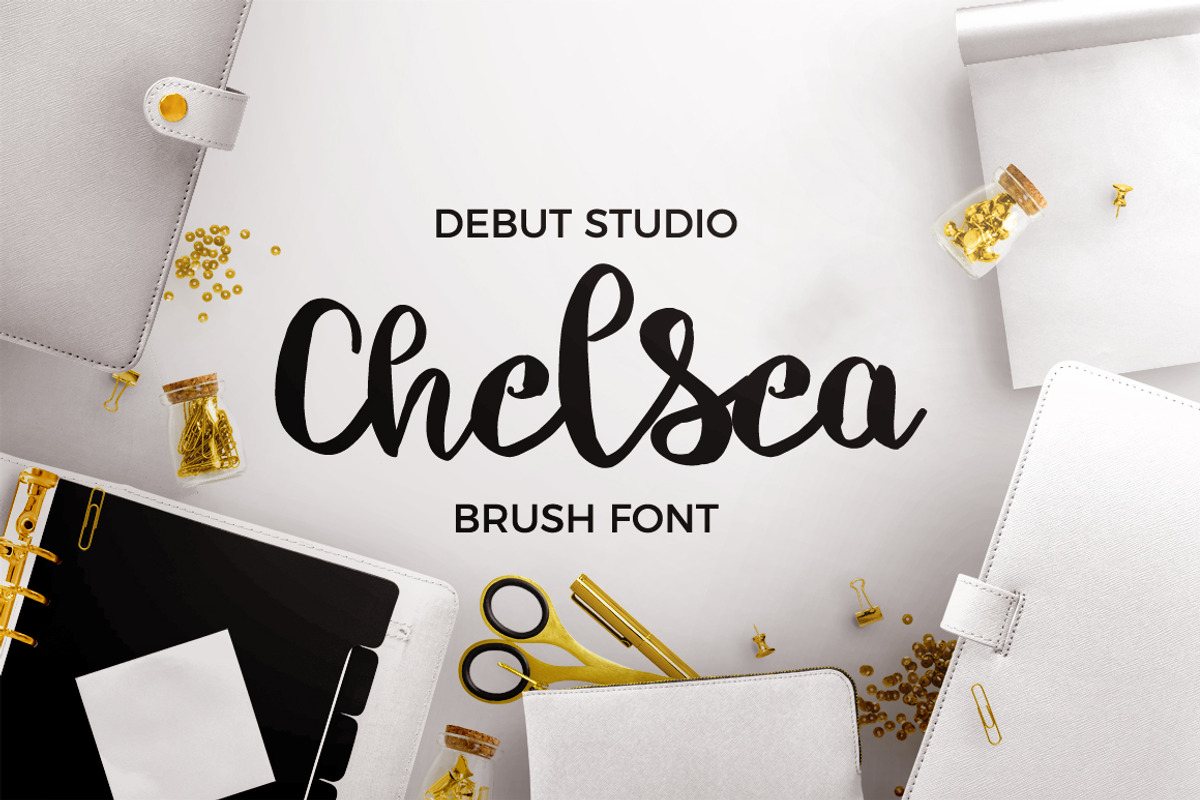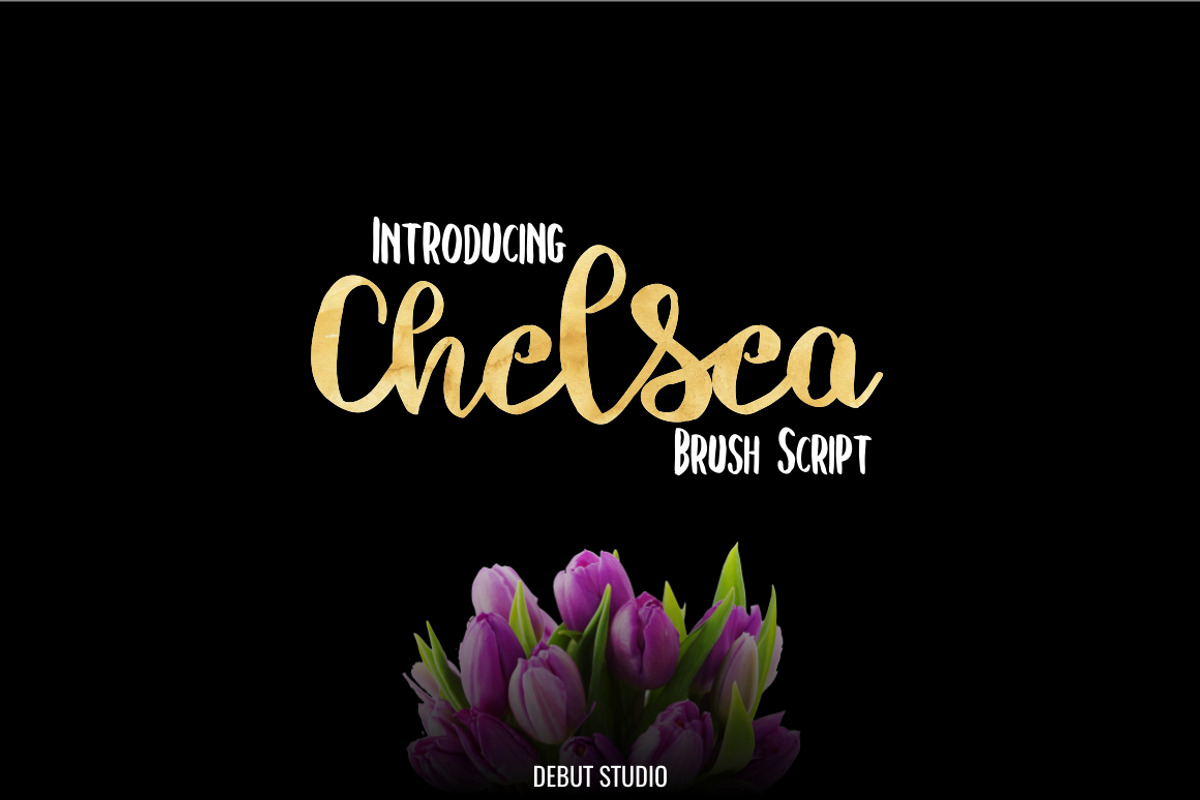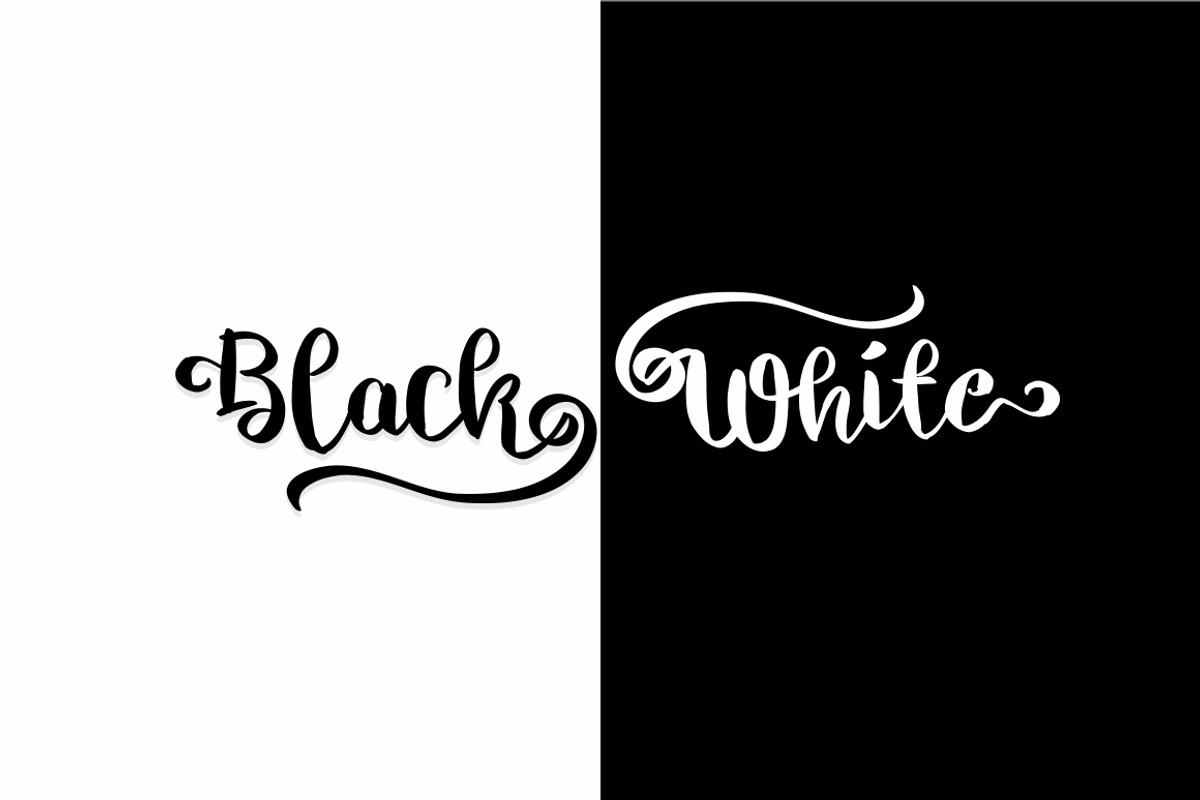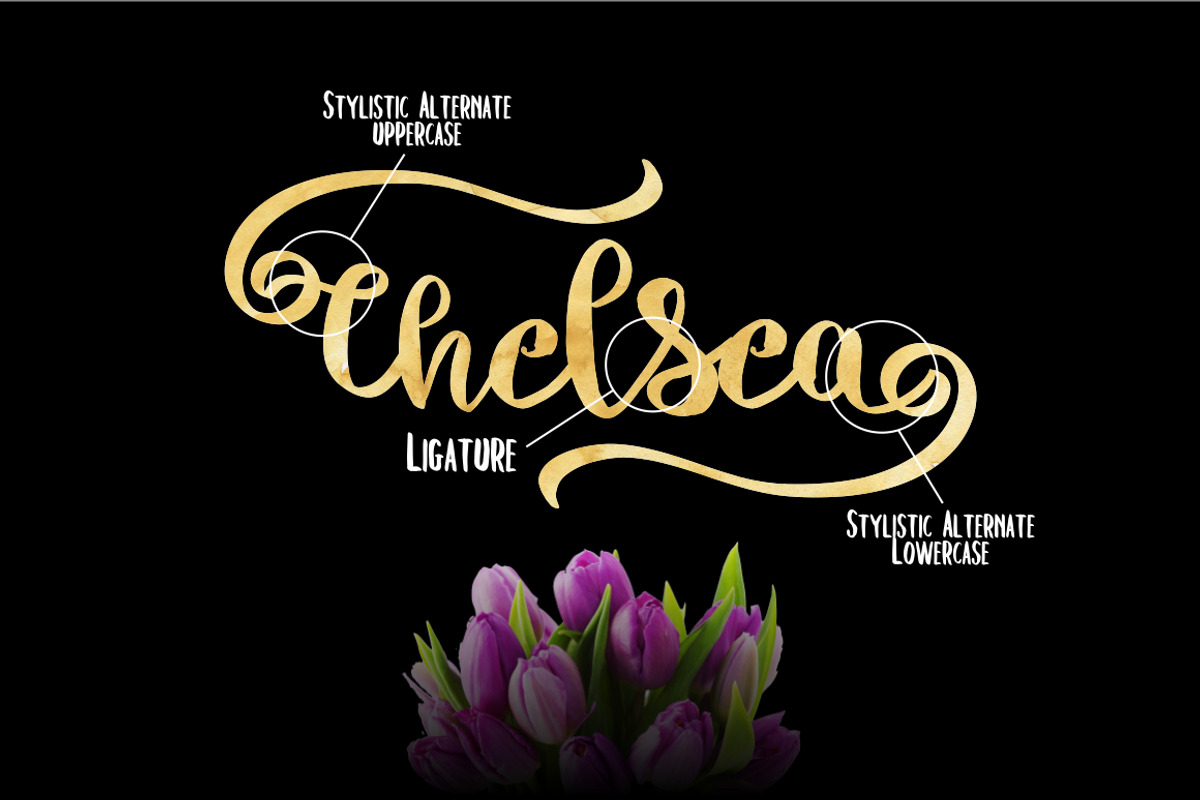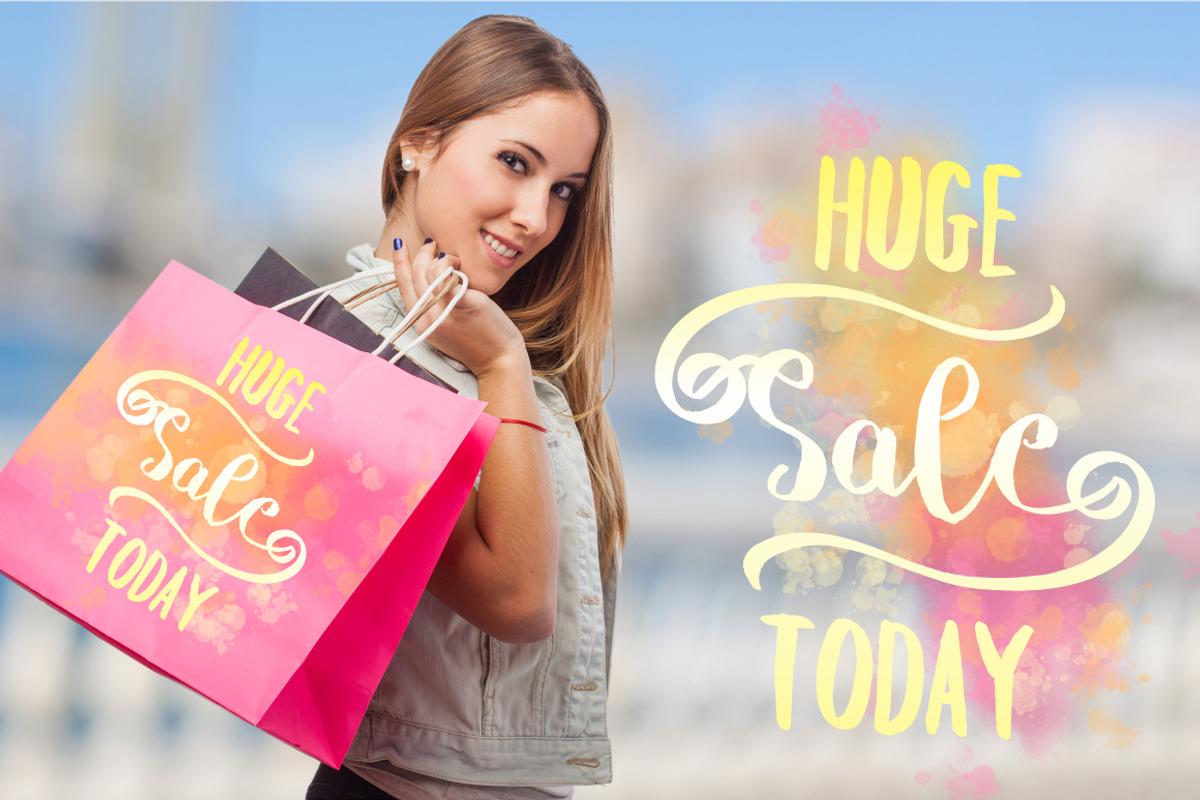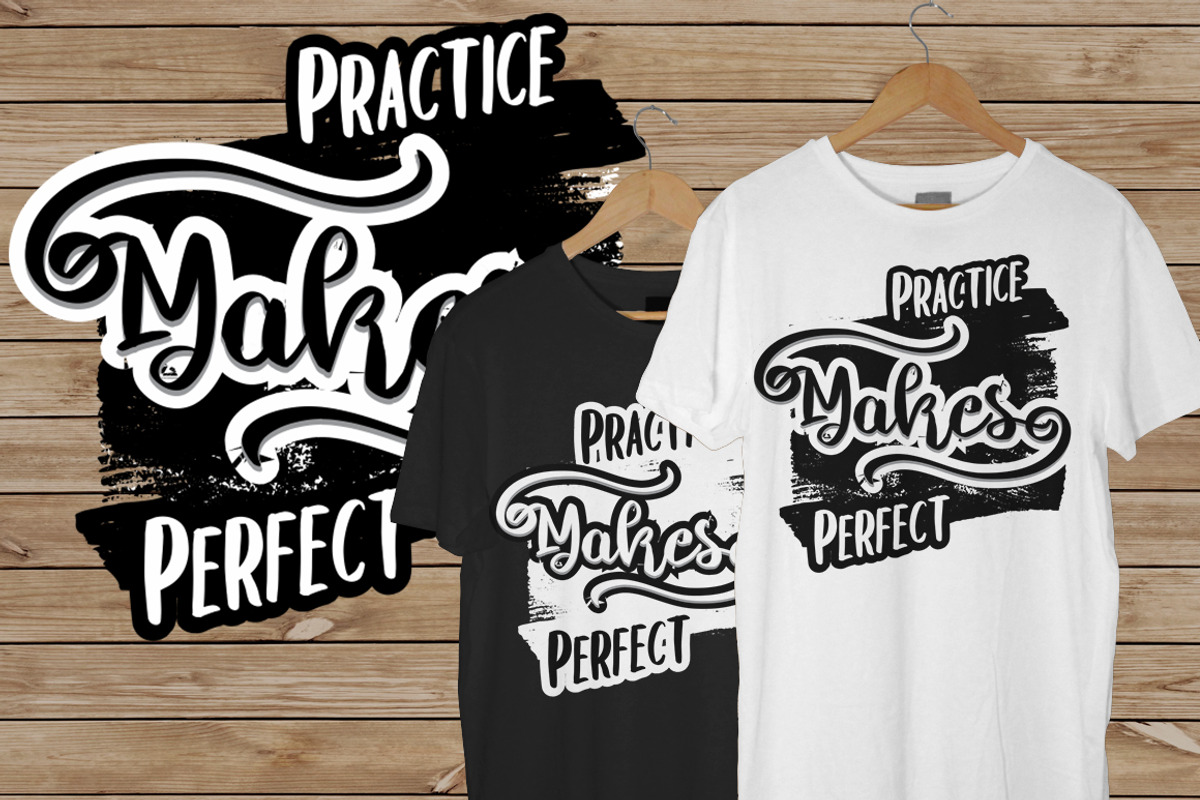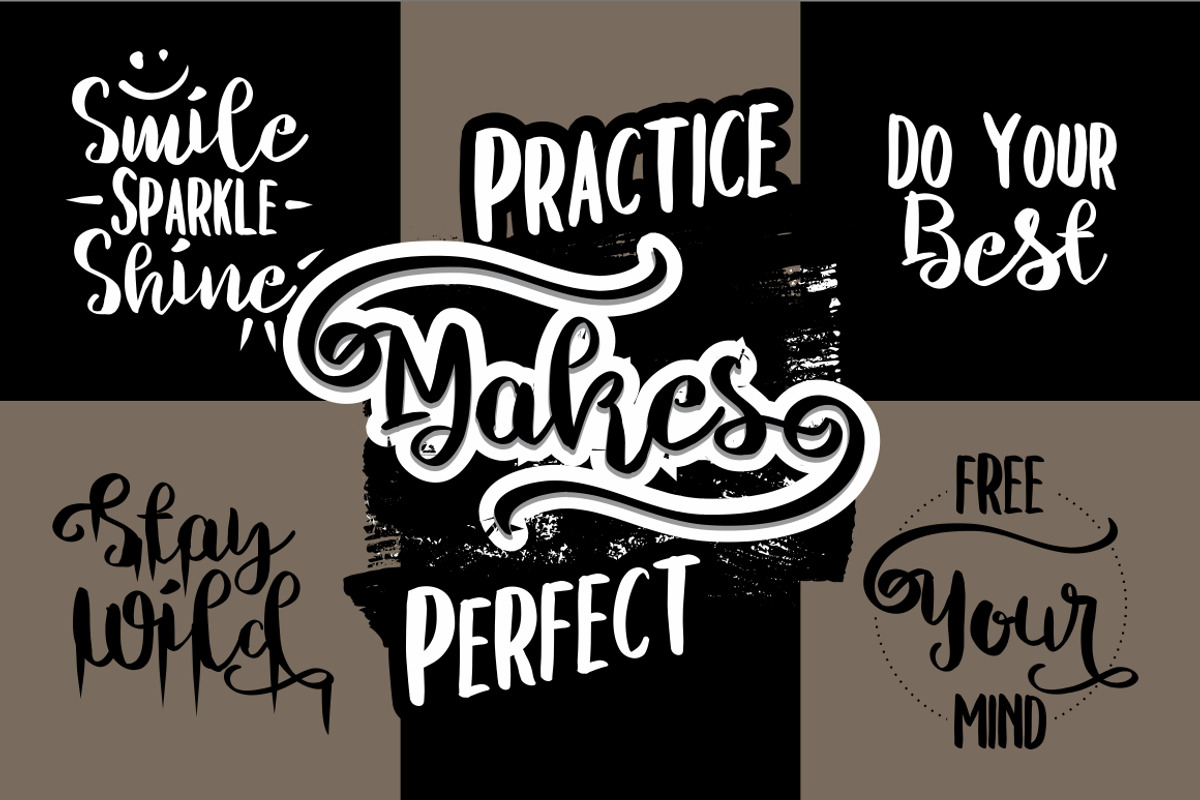
Chelsea Font Duo
Introducing Chelsea Font Duo
This font inspired from hand-drawn lettering style, suitable for your awesome works like Poster, Logo, T-Shirt Design, Advertisement, Quote Display, Wedding Invitation etc